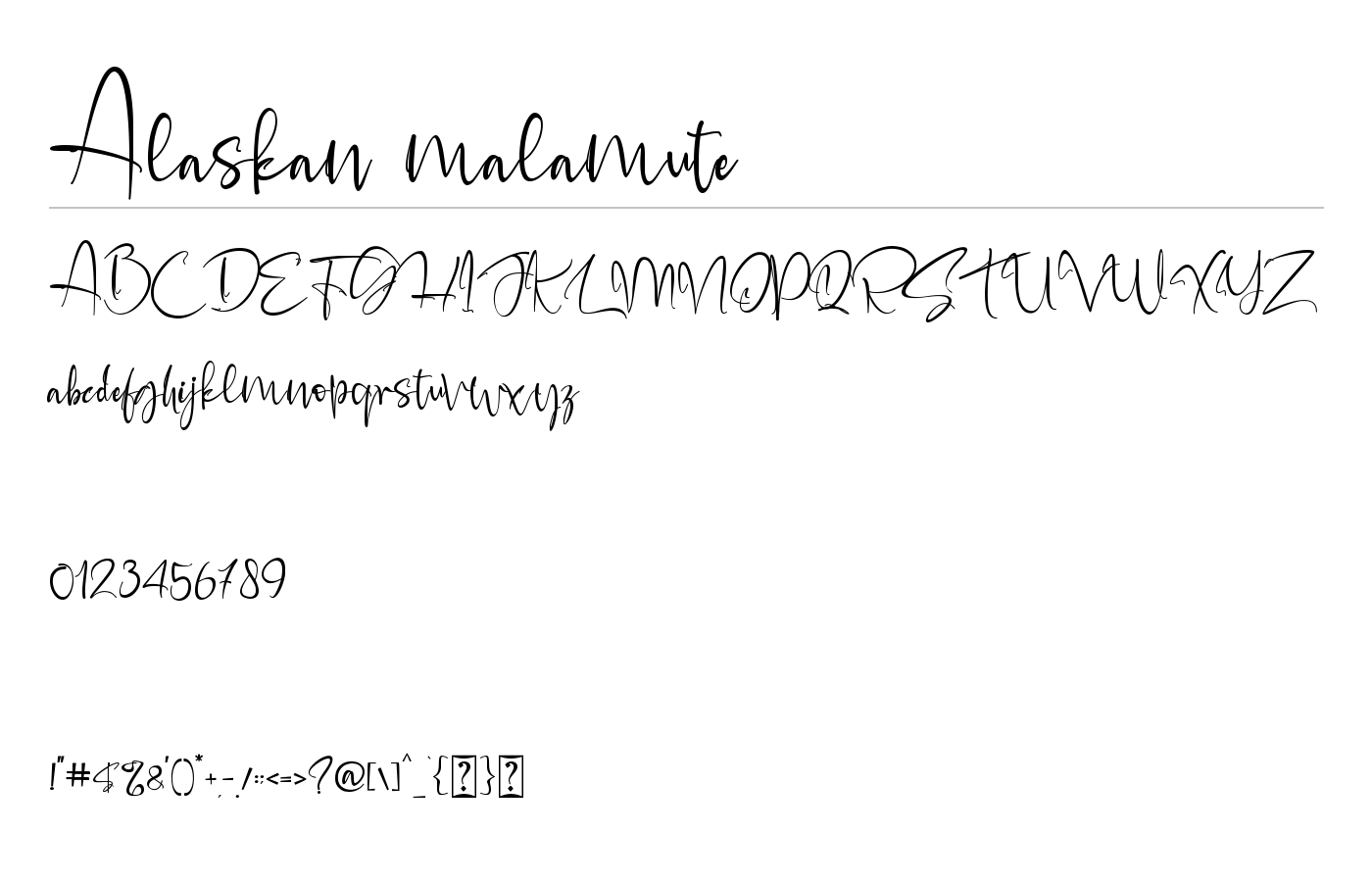
Alaskan Malamute is a delicate and stylish handwritten script font with a light weight and tall, elegant letterforms. Its flowing, slightly uneven strokes give it a charming, personal touch, making it ideal for projects that want to convey warmth, creativity, and sophistication. This font works beautifully for invitations, branding, and editorial designs that benefit from a graceful, artistic flair.
Alaskan malamute Font
About Alaskan malamute Font